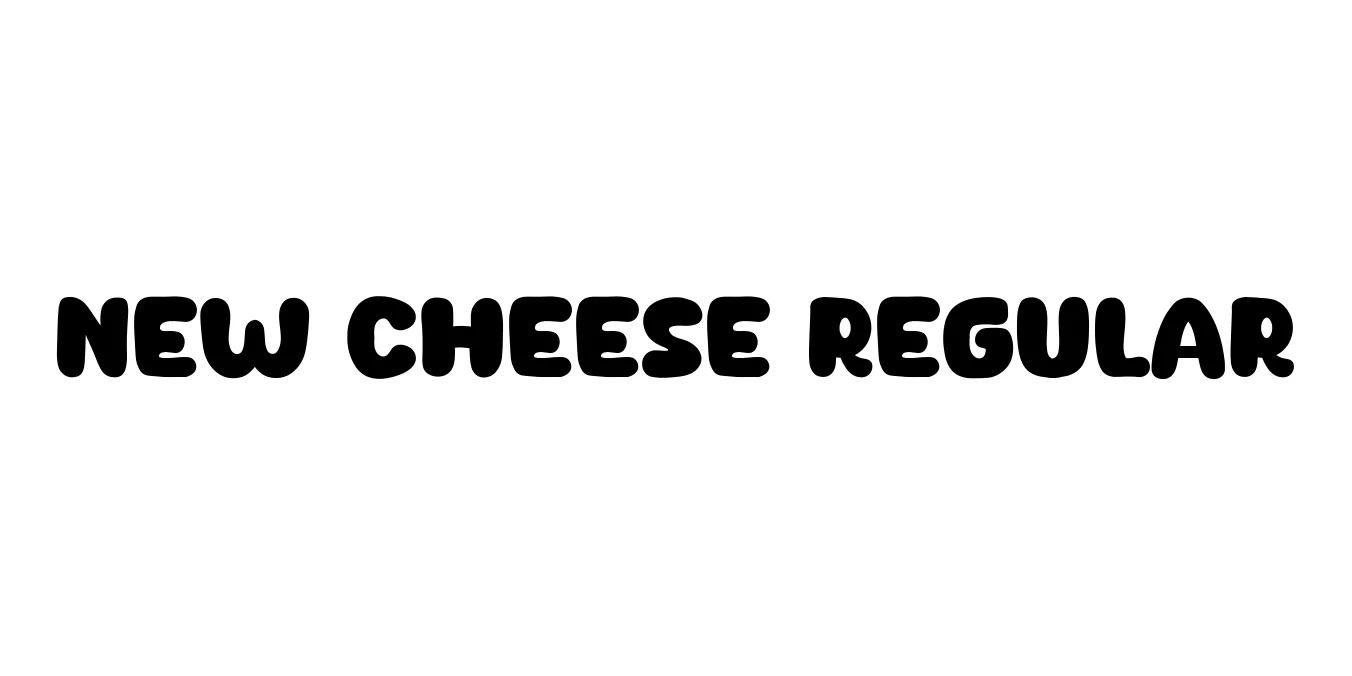
New Cheese Regular
Designed by Tokokoo
| Font Name | New Cheese |
| Category | Display / Decorative |
| Designer | Tokokoo |
New Cheese Regular is a vibrant and playful display font characterized by its chunky, organic letterforms that evoke a sense of fun and creativity. Its soft edges and hand-drawn quality make it an excellent choice for projects that require a friendly and approachable aesthetic, such as food-related branding, children's literature, or quirky marketing campaigns.
Designed to stand out in headlines and posters, this font captures attention with its unique bubbly personality. Whether you are working on snack packaging or a social media campaign, New Cheese Regular provides a whimsical touch that is both modern and nostalgic, ensuring your message is delivered with a cheerful and memorable tone.
New Cheese Regular Best Uses
Perfect for snack packaging, cheese shop logos, and cafe menus.
Ideal for storybook titles, toy labels, and educational posters.
Great for creating vibrant, eye-catching graphics and cheerful quotes.